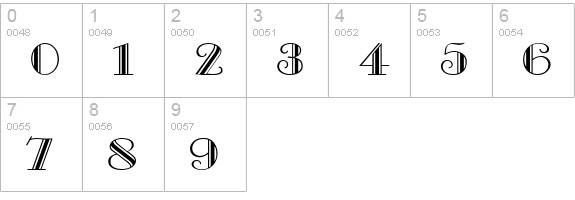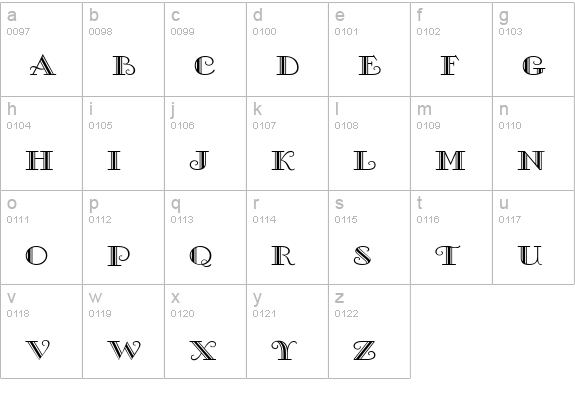
Gallery font is a stunning typeface that exudes elegance and sophistication. With its sleek and refined design, this font is perfect for adding a touch of class to any project. Whether used for headings, logos, or body text, Gallery font effortlessly captures attention and commands a strong visual presence. What sets Gallery font apart is not only its aesthetic appeal but also its accessibility. This remarkable font is available for free download at FontsMarket.com, making it a valuable asset for designers, creatives, and anyone in need of a high-quality typeface. With just a few clicks, you can add Gallery font to your font library and begin incorporating its timeless charm into your projects. The versatility of Gallery font is evident in its ability to adapt to various styles and contexts. Its clean lines and balanced proportions make it suitable for both contemporary and classic designs, ensuring it can complement a wide range of visual concepts. Whether you're working on a modern website, a vintage-inspired poster, or an elegant wedding invitation, Gallery font will enhance your message and create a lasting impression. Furthermore, Gallery font offers a comprehensive character set, including uppercase and lowercase letters, numerals, punctuation marks, and special characters. This extensive range of glyphs allows for seamless communication in multiple languages and ensures that your design remains consistent and cohesive. The legibility of Gallery font is another noteworthy aspect. Its carefully crafted letterforms guarantee clear and easy-to-read text, regardless of size or format. This makes it an excellent choice for both print and digital applications, ensuring your message is delivered effectively every time. In conclusion, Gallery font is a remarkable typeface that combines aesthetic appeal, versatility, and accessibility. Its availability as a free download at FontsMarket.com makes it an invaluable resource for designers seeking a high-quality font without breaking the bank. Whether you're working on branding, advertising, or any other creative project, Gallery font will elevate your design and leave a lasting impression on your audience.